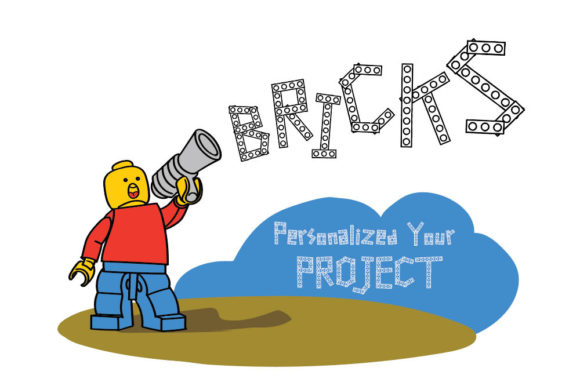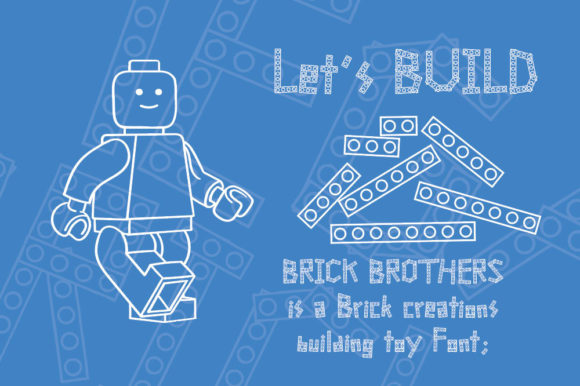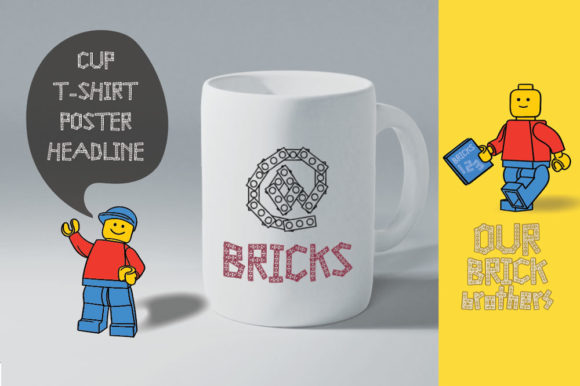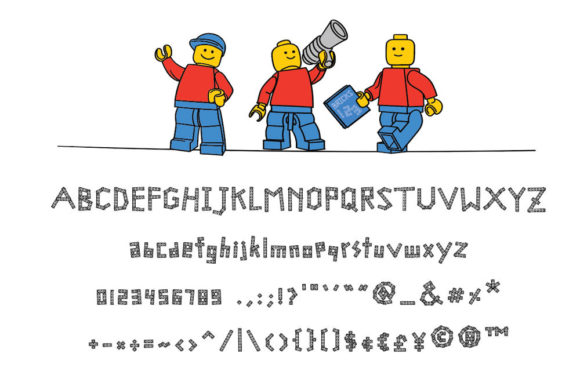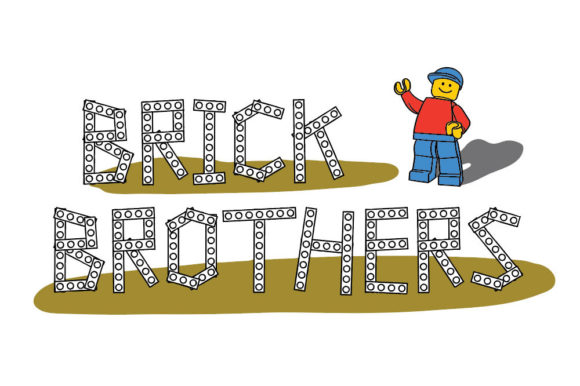
The Ultimate Guide to Brick Brothers Font: A Fun and Unique Decorative Font
I’ll never forget the time I was working on a children’s activity book project, and I just couldn’t find the right font to bring the illustrations to life. The client wanted something playful, yet authentic, and I was determined to deliver. That’s when I stumbled upon Brick Brothers Font, a game-changing decorative font that exceeded my expectations. In this article, I’ll share my experience with Brick Brothers, its features, and how to make the most of it in your designs.
An Honest Review of Brick Brothers Font
Brick Brothers Font is a fun, unique, and originally designed decorative font that embodies playfulness and authenticity. Here’s what I love about it:
- ✨ Unique and quirky design that adds a touch of personality to any project
- ✅ Perfect for children’s activity books, school projects, and other kid-friendly designs
- 💡 Highly legible, even at smaller font sizes
- 🎨 Versatile and can be used for titles, headings, and even body text
While Brick Brothers Font is an excellent choice for many projects, it’s not without its quirks:
- 🤔 Limited character set, which may not be suitable for projects requiring a wide range of special characters
- ⚠️ May not be the best choice for formal or professional designs, as it’s quite playful and informal
The Backstory Behind Brick Brothers Font
Brick Brothers Font was designed by a team of creatives who wanted to create a font that would bring joy and playfulness to designs. Inspired by the nostalgia of childhood and the simplicity of building blocks, Brick Brothers Font was born. The designers aimed to create a font that would be both fun and authentic, making it perfect for children’s activity books, school projects, and other kid-friendly designs.
| Font Name | Brick Brothers Font |
| Author | pointsandpicas |
| What is Brick Brothers Font? | Brick Brothers Font is a fun, unique, and originally designed decorative font that embodies playfulness and authenticity. |
| Does Brick Brothers Font support OpenType features? | Yes, Brick Brothers Font supports OpenType features, such as glyphs and stylistic alternates, which can be accessed in compatible design software. |